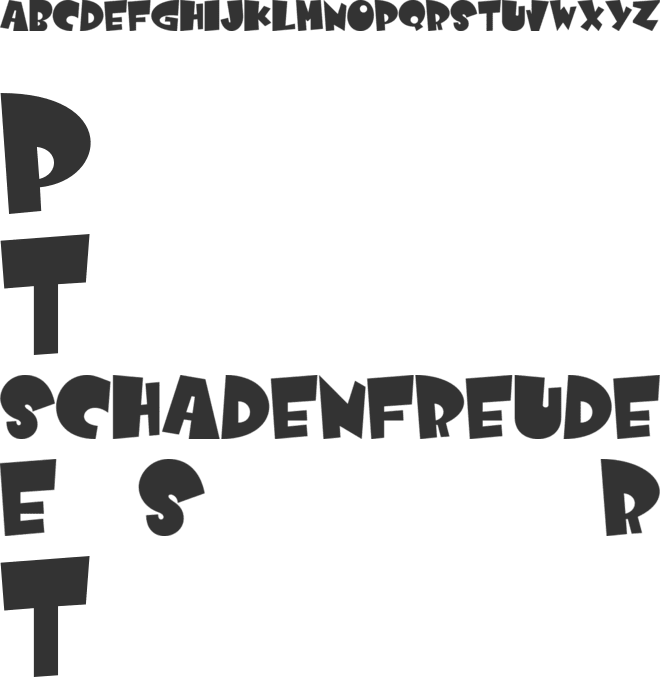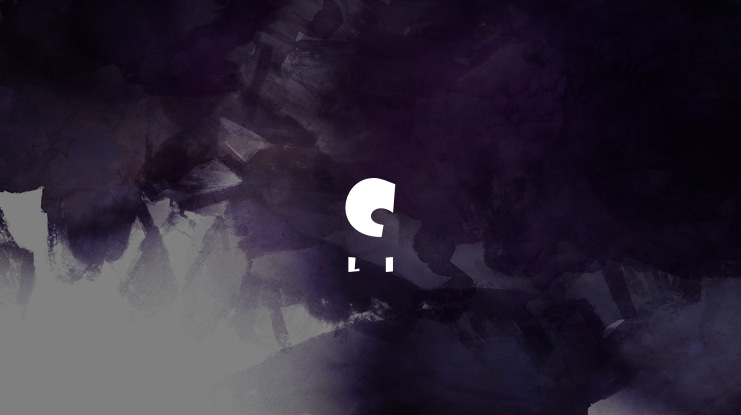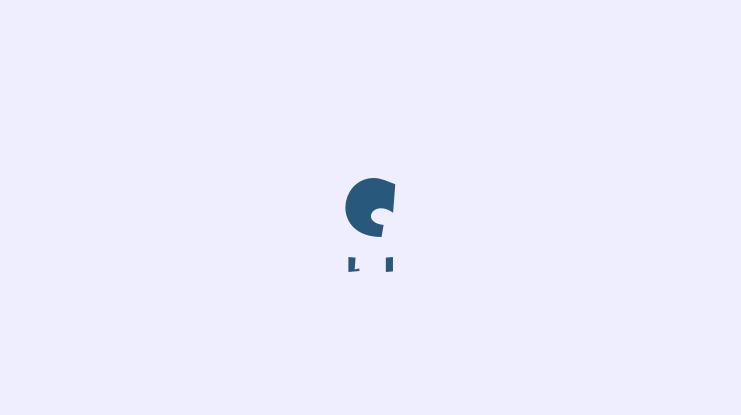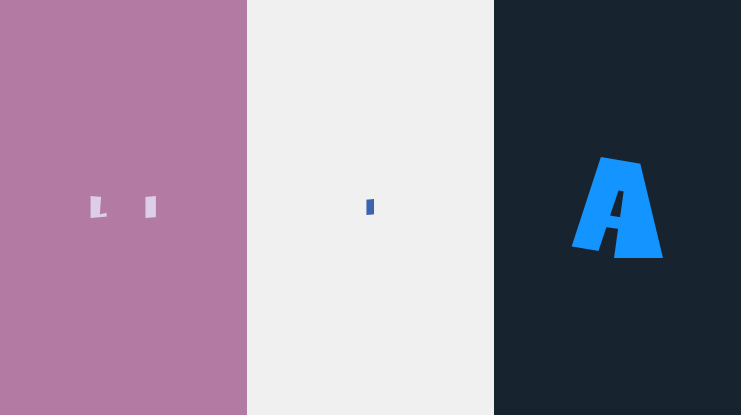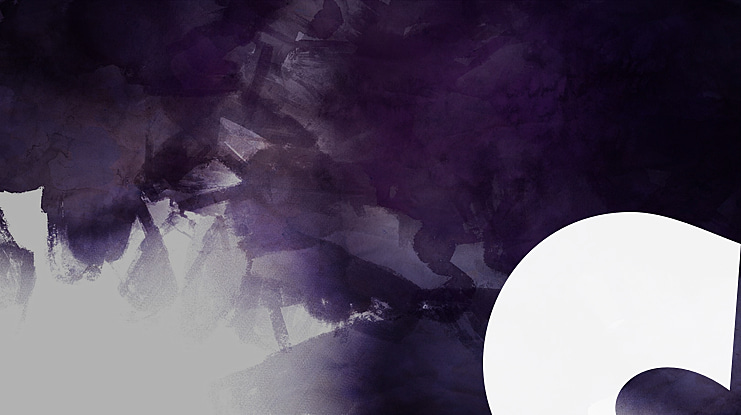
Comicartoon Font
Comicartoon is a playful and cheerful display font that captures the magic of cartoons from a distant era. You can use it for cartoon related designs, children games or just any creation that requires a lovely touch. Get inspired by its beautiful charm, and turn any design project into a stand out!